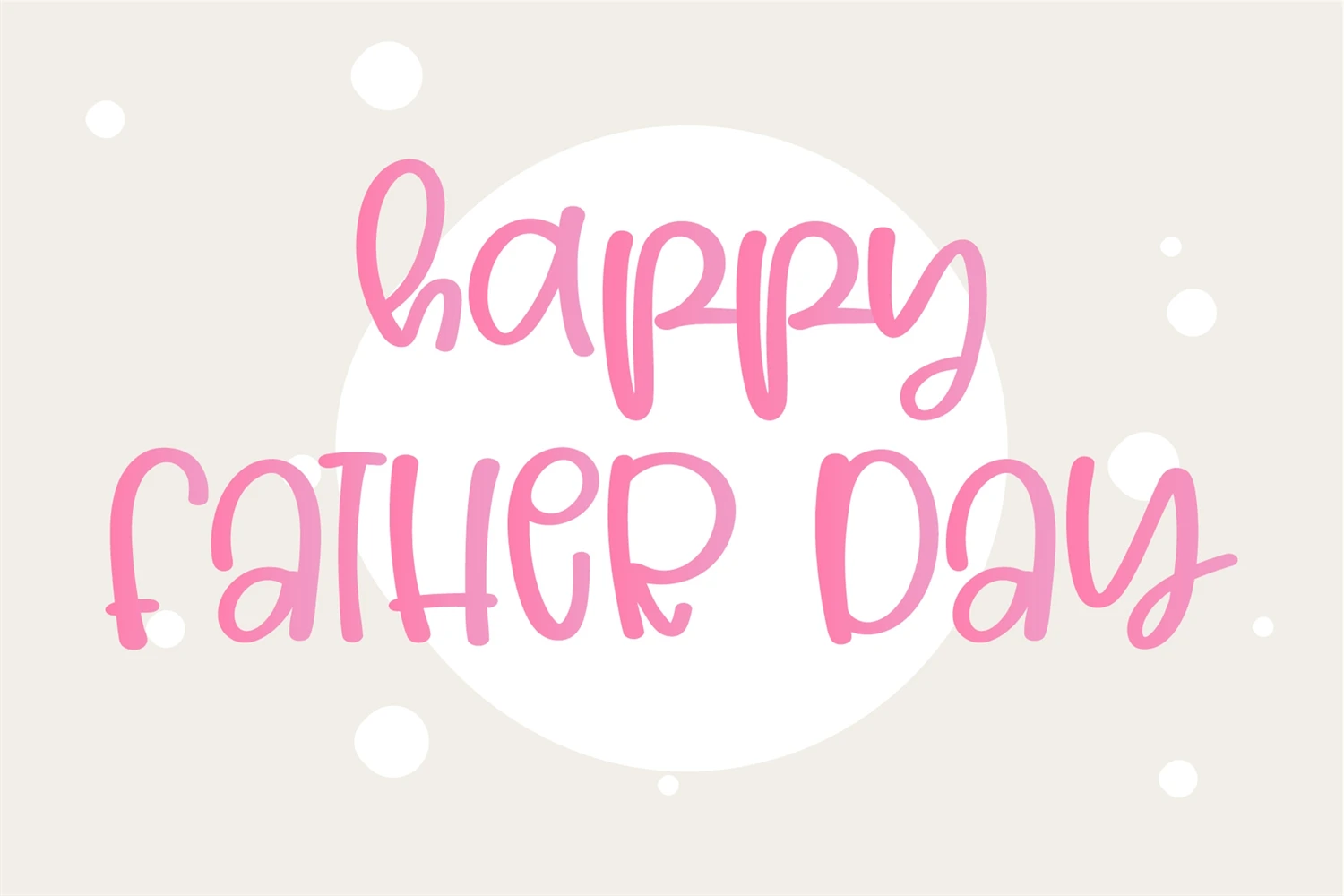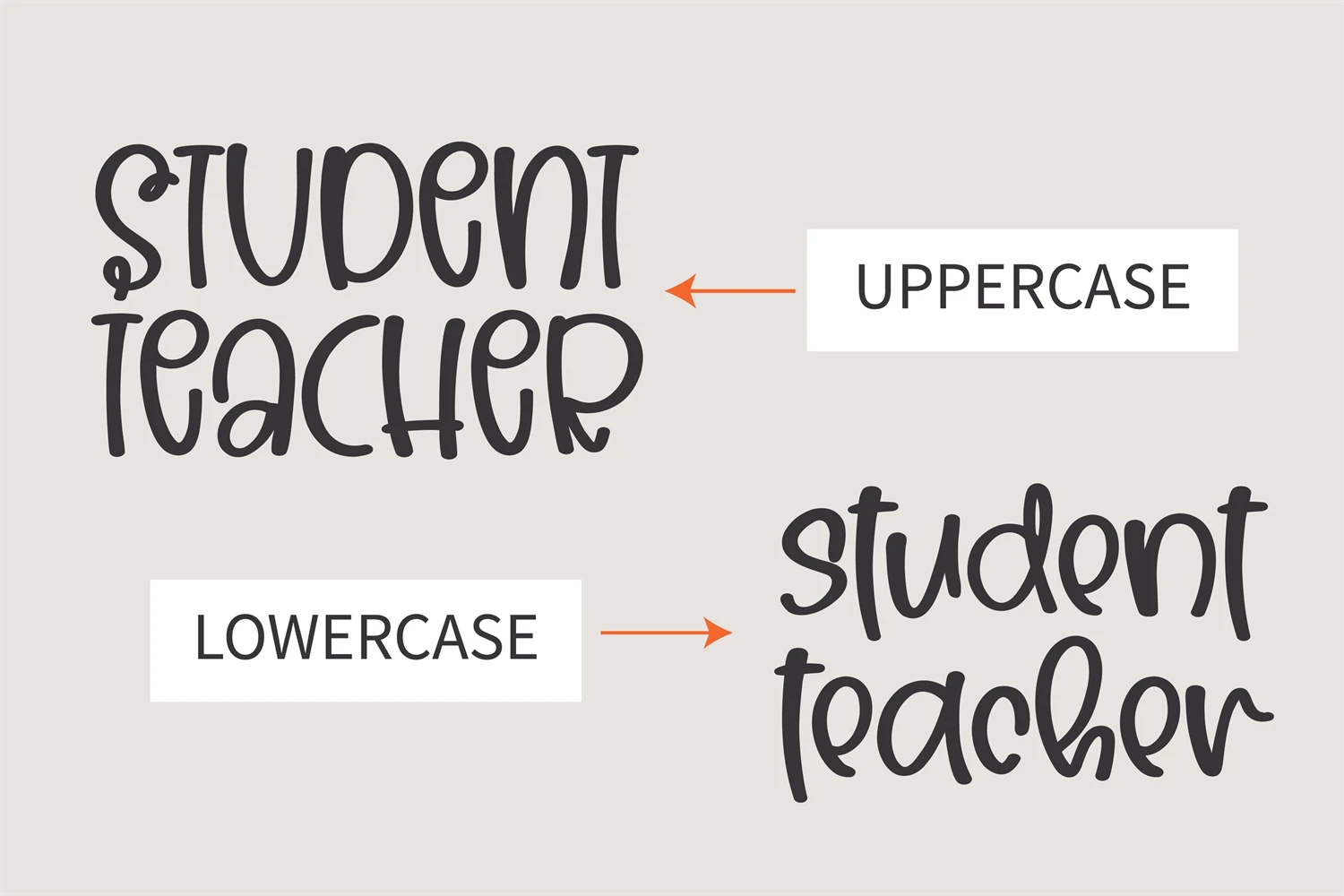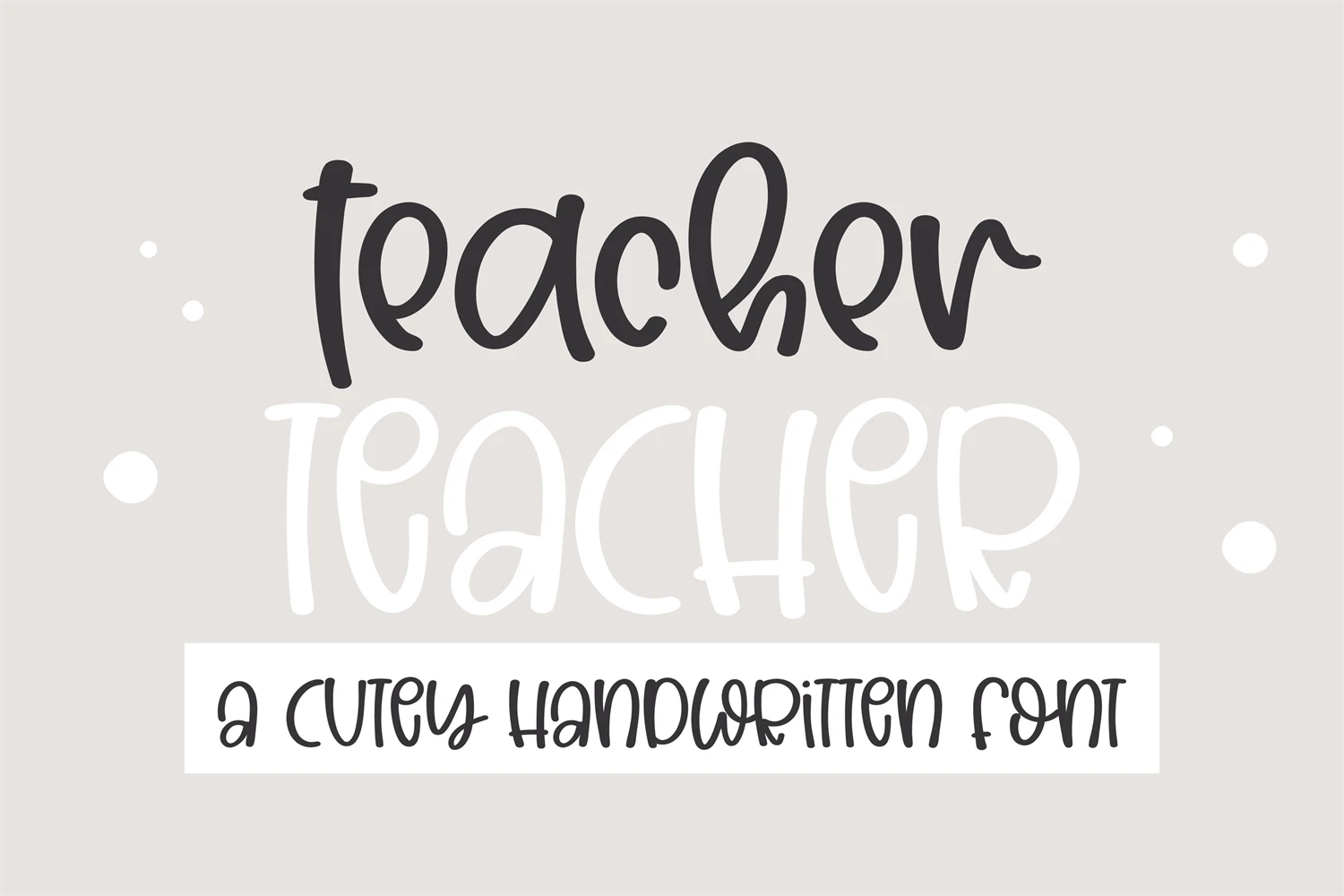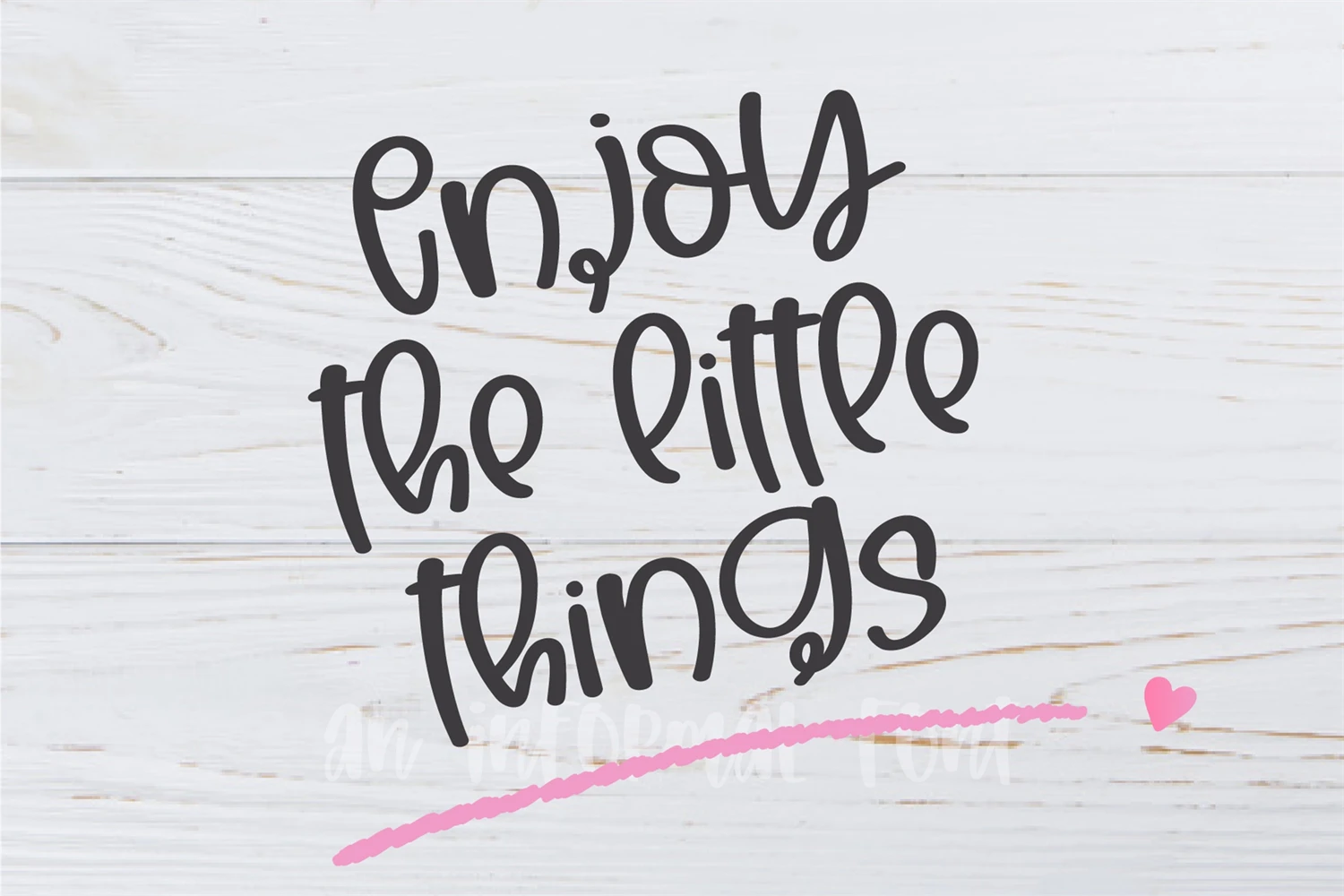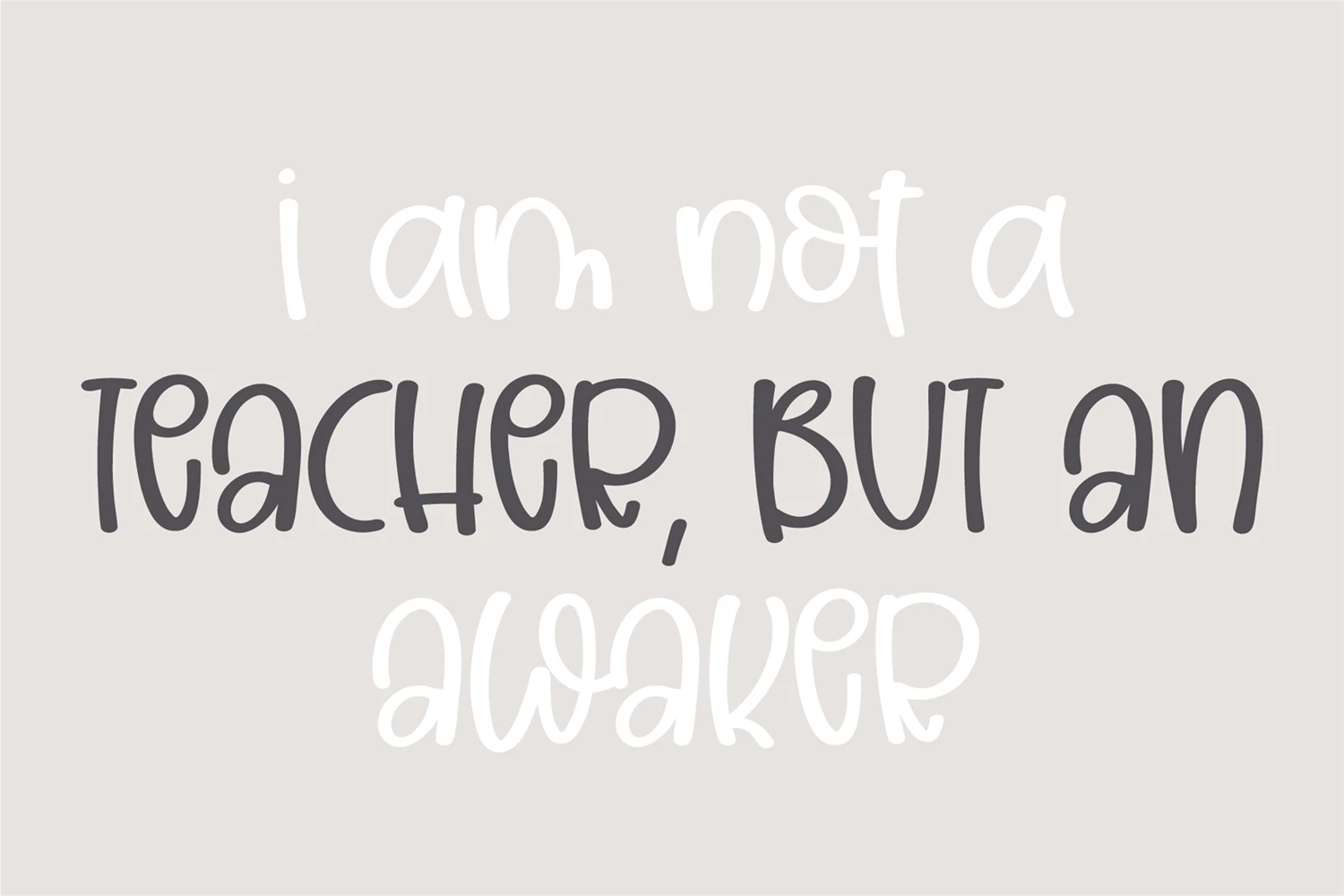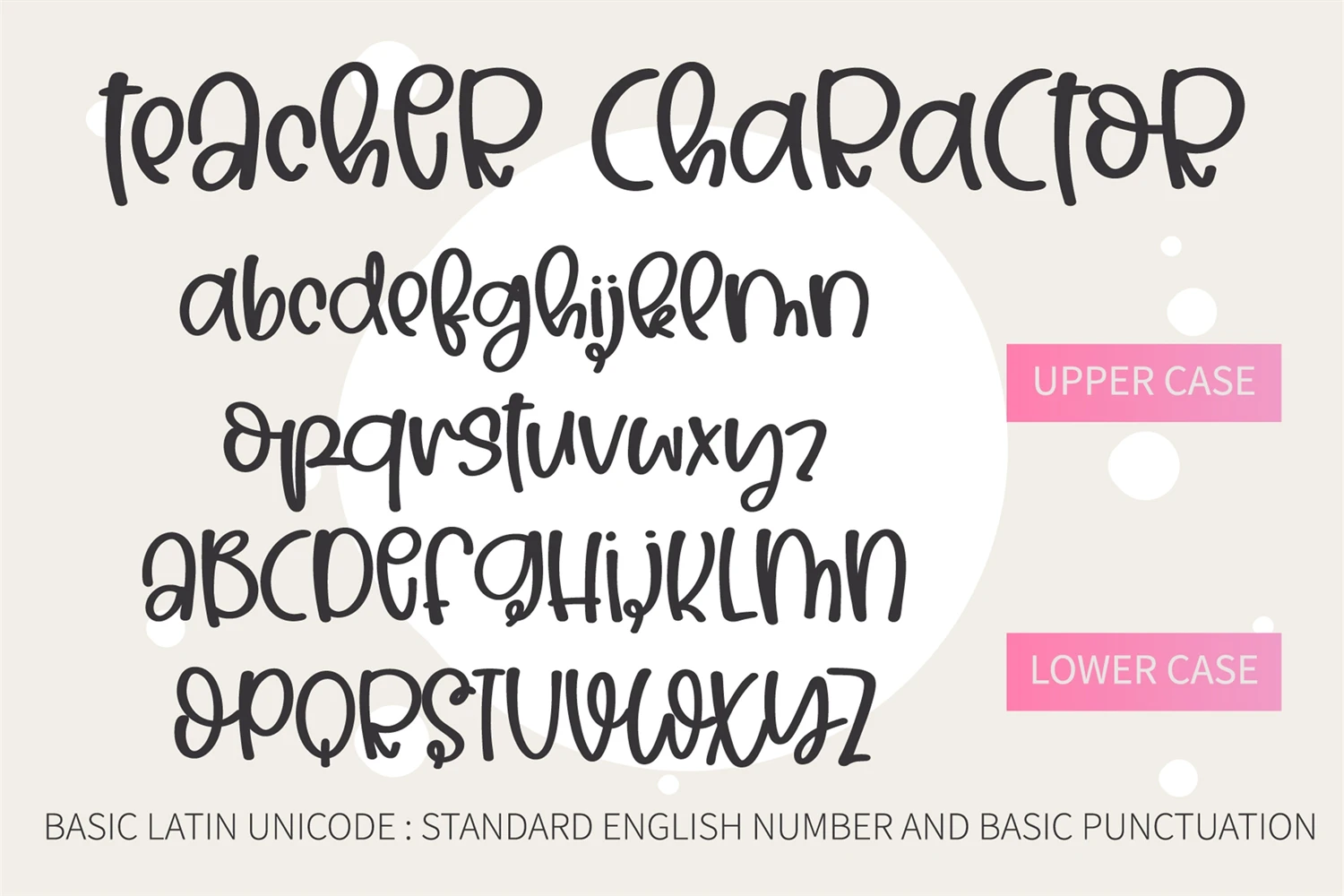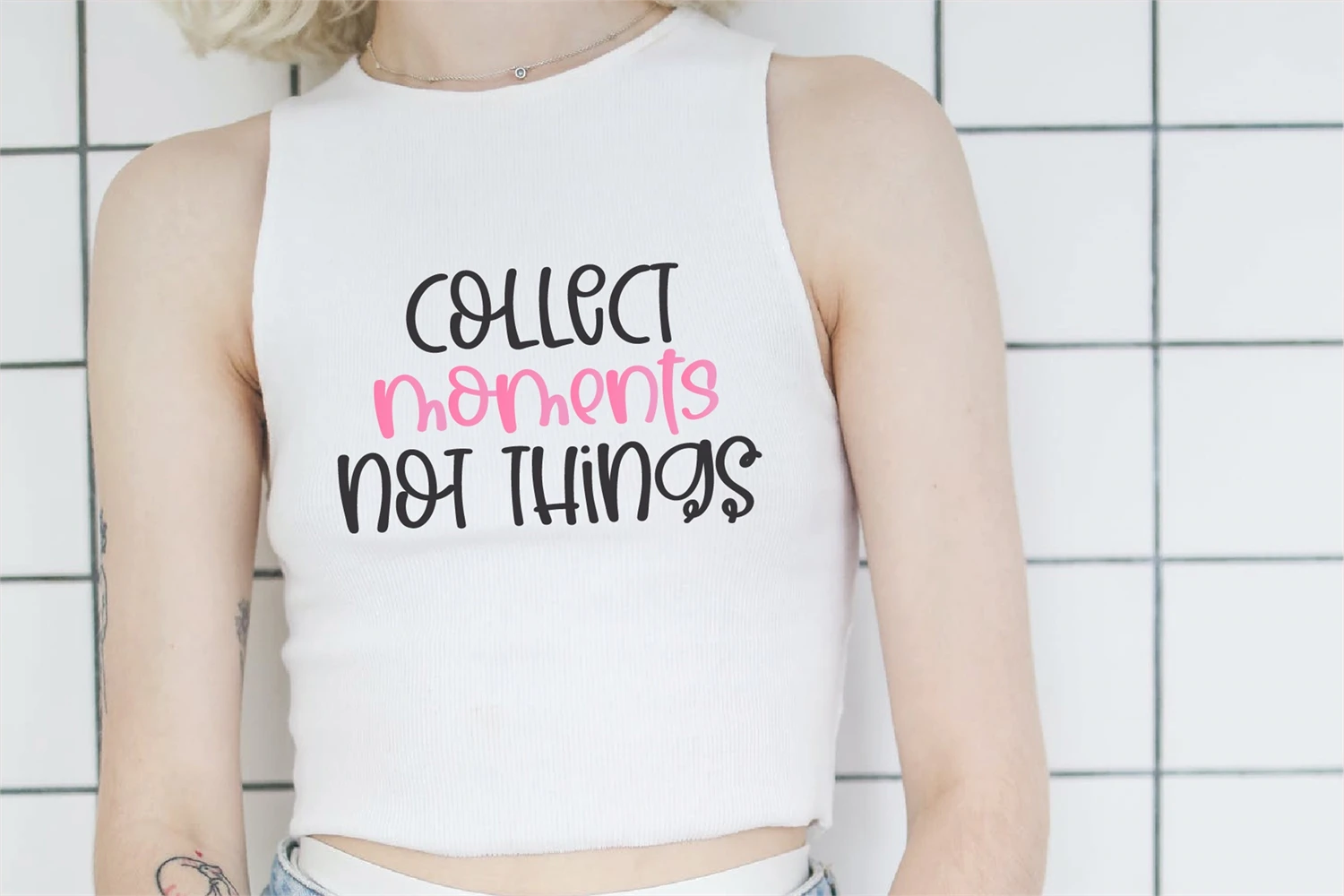
Teacher is a cool, friendly, and informal handwritten font, that can be used for all chalkboard quotes or teaching material! Its authentic look will add a personal and realistic feel to your designs.